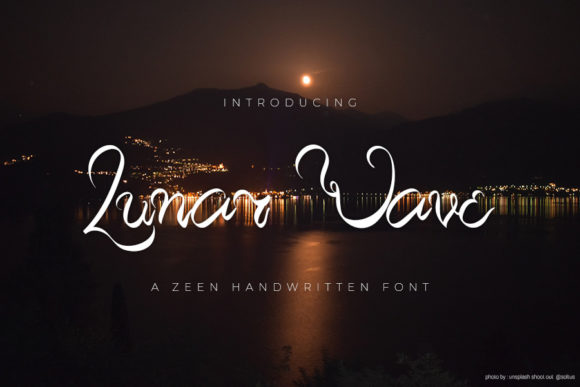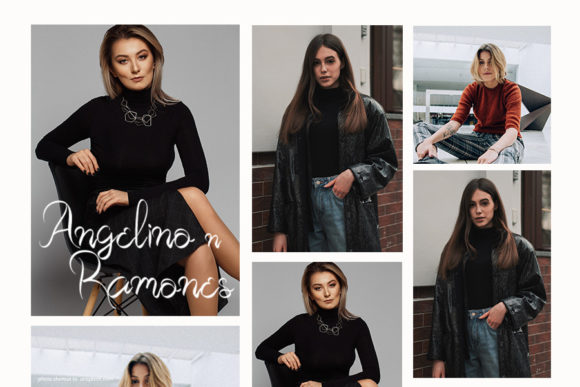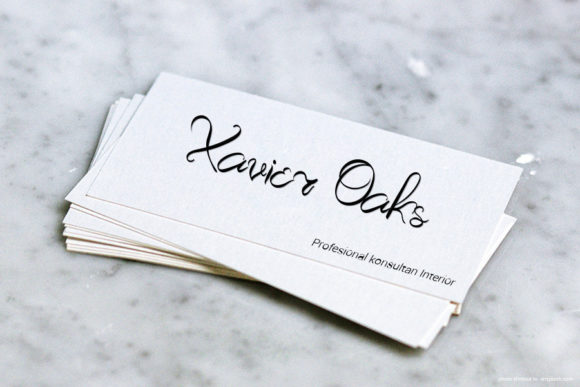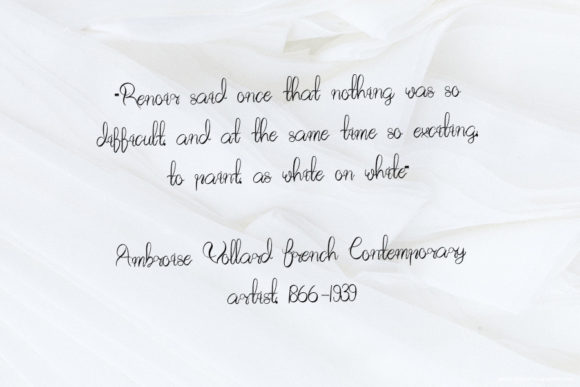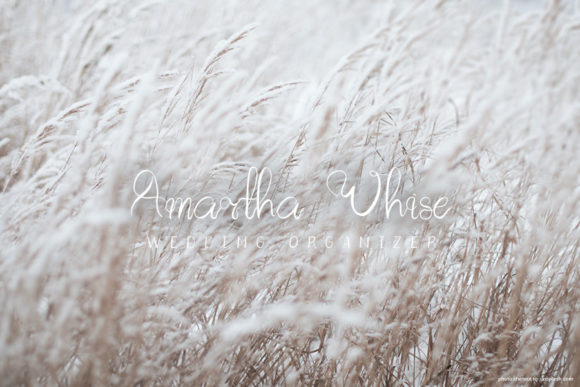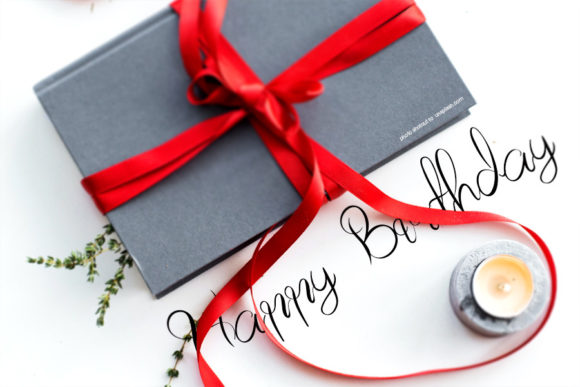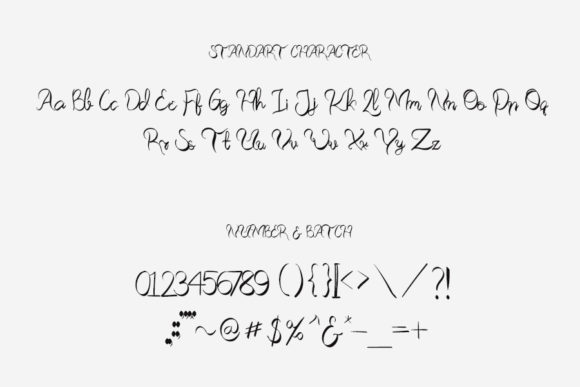
Lunar Wave Font
About Lunar Wave Font
Lunar Wave is a refined and timeless handwritten font. It is the best choice for creating eye-catching logos, branding, and quotes. Every letter has a unique and beautiful touch, which will make your designs come alive!